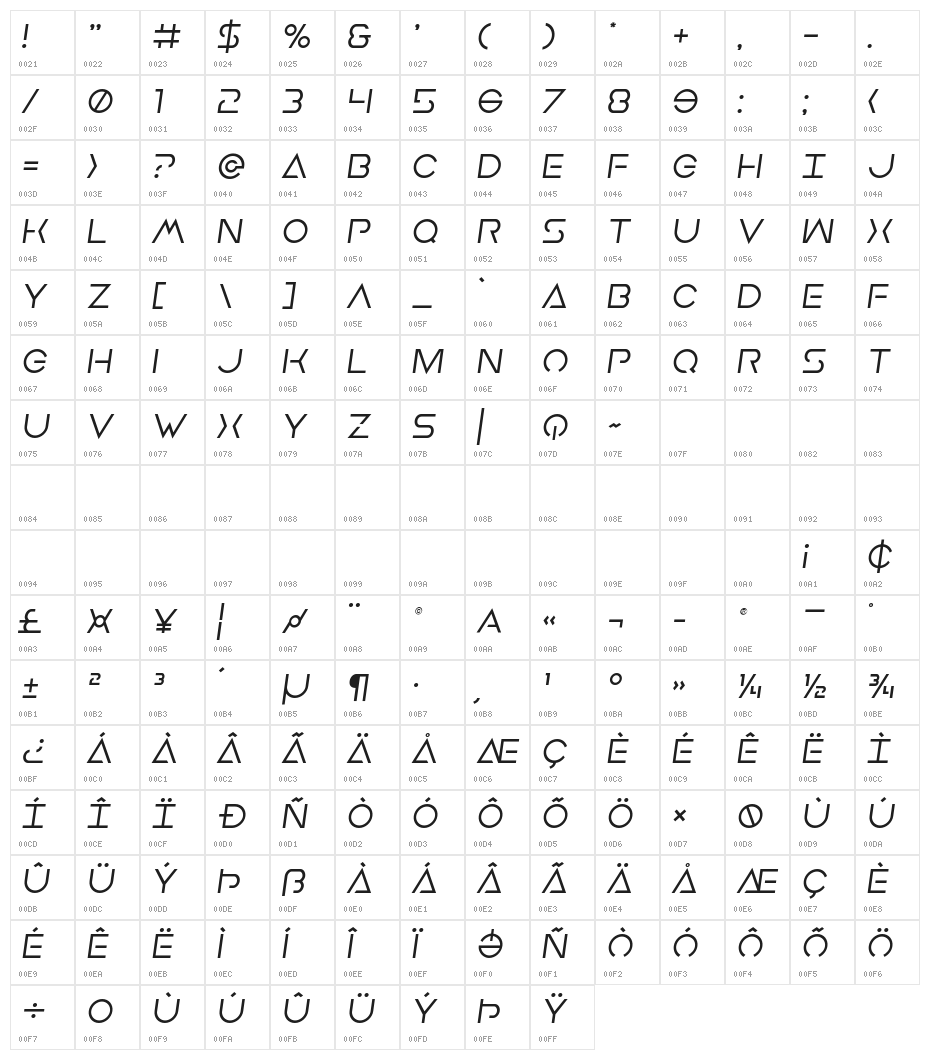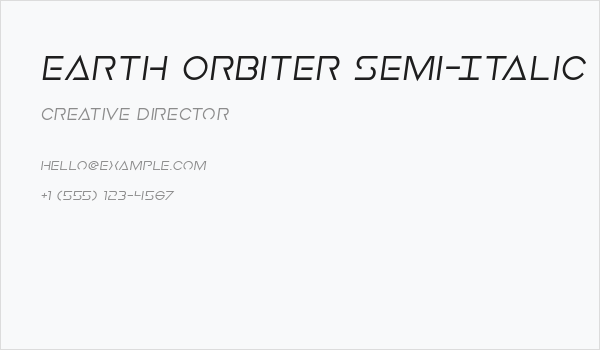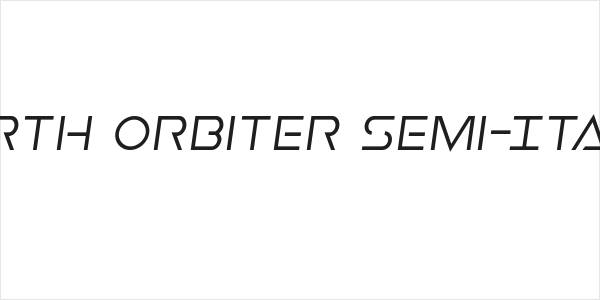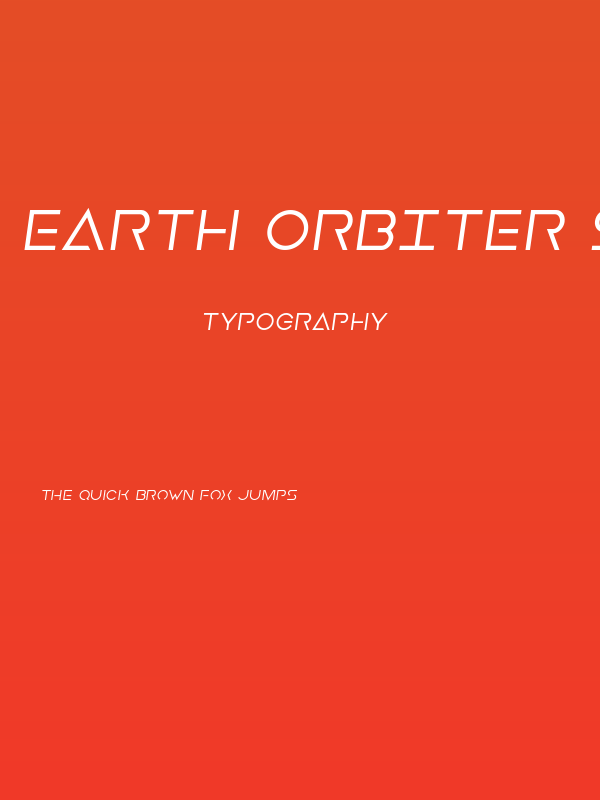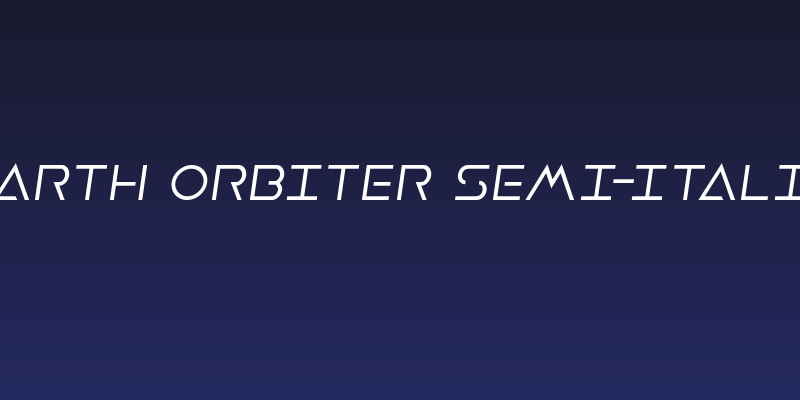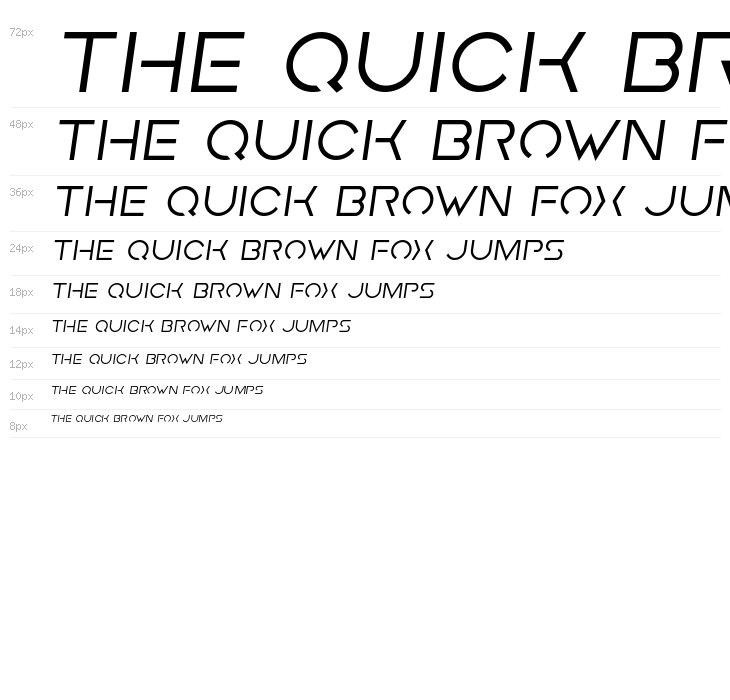
Earth Orbiter Semi-Italic Font
Earth Orbiter Semi-Italic Description
This font features a sleek, futuristic design with a semi-italic slant, giving it a dynamic and modern appearance. The characters are crafted with clean, geometric lines and a slight forward tilt, enhancing readability while maintaining a stylish edge. The uppercase and lowercase letters share a consistent structure, with unique angular cuts that add a sense of motion and energy. The numerals and special characters are designed to complement the alphabet, maintaining the same angular and modern aesthetic. This font is ideal for projects that require a contemporary and innovative look, such as technology branding, sci-fi themes, or modern advertising.
Use CaseHeadlines, Logos, Branding
Proposed ProjectsIdeal for technology branding, sci-fi themes, modern advertising, and innovative design projects.